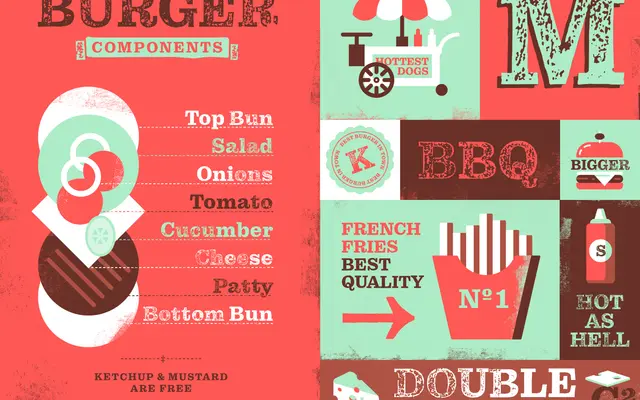
A display typeface that simulates handmade woodblock printing across four styles, each representing a different degree of print wear and ink degradation.
Each of the four styles, Fine, Used, Rancid and Rotten, was produced by physically cutting 193 glyphs into wooden plates and printing them by hand, with the most characterful impressions then digitised. The Pro version consolidates all 2,240 glyphs into a single font file, using contextual alternates to randomise glyph selection and optimised kerning across all style combinations. Language support spans Western, Central and Eastern European Latin scripts, making it broadly useful for multilingual display work with a handcrafted aesthetic.
Kontiki digitally simulates a handmade woodblock print, with four styles representing varying degrees of print degradation. It is firmly a display typeface designed for decorative and expressive use rather than continuous text.